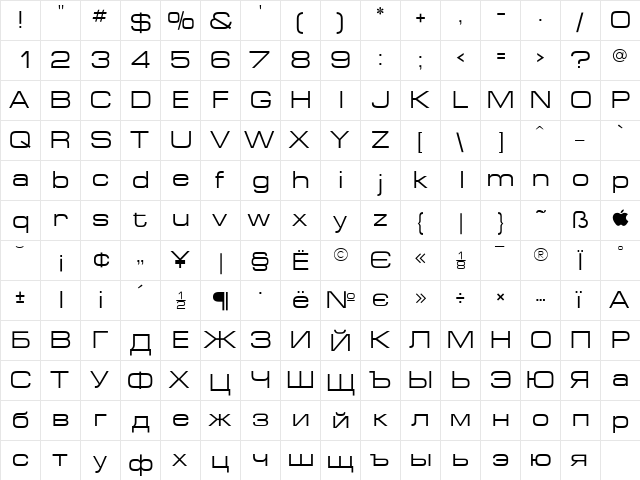
EuropeExt Normal Font Preview
EuropeExt Normal
Design Context for EuropeExt Typeface
EuropeExt is a composed and adaptable typeface that performs quietly and consistently across a wide range of design contexts.